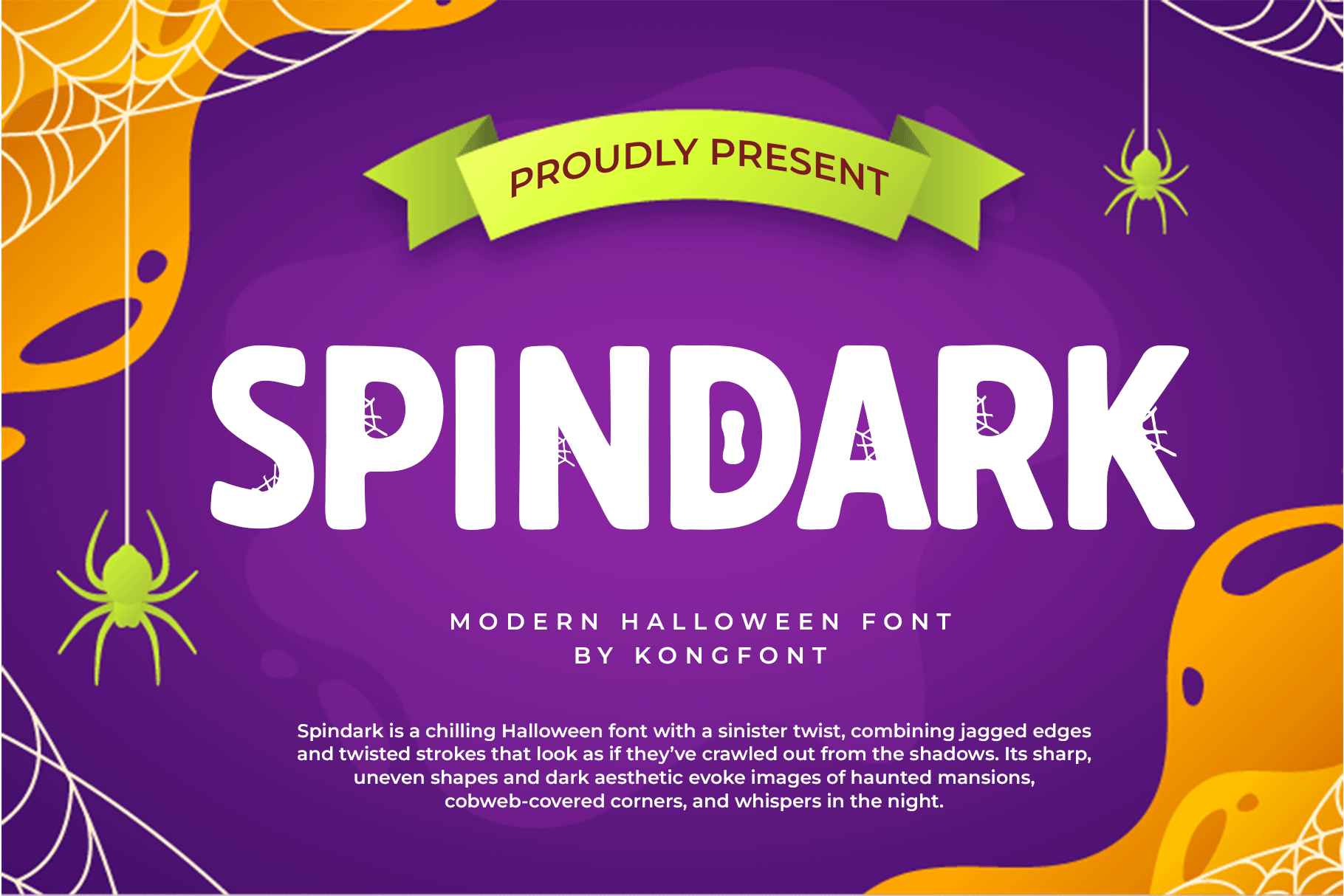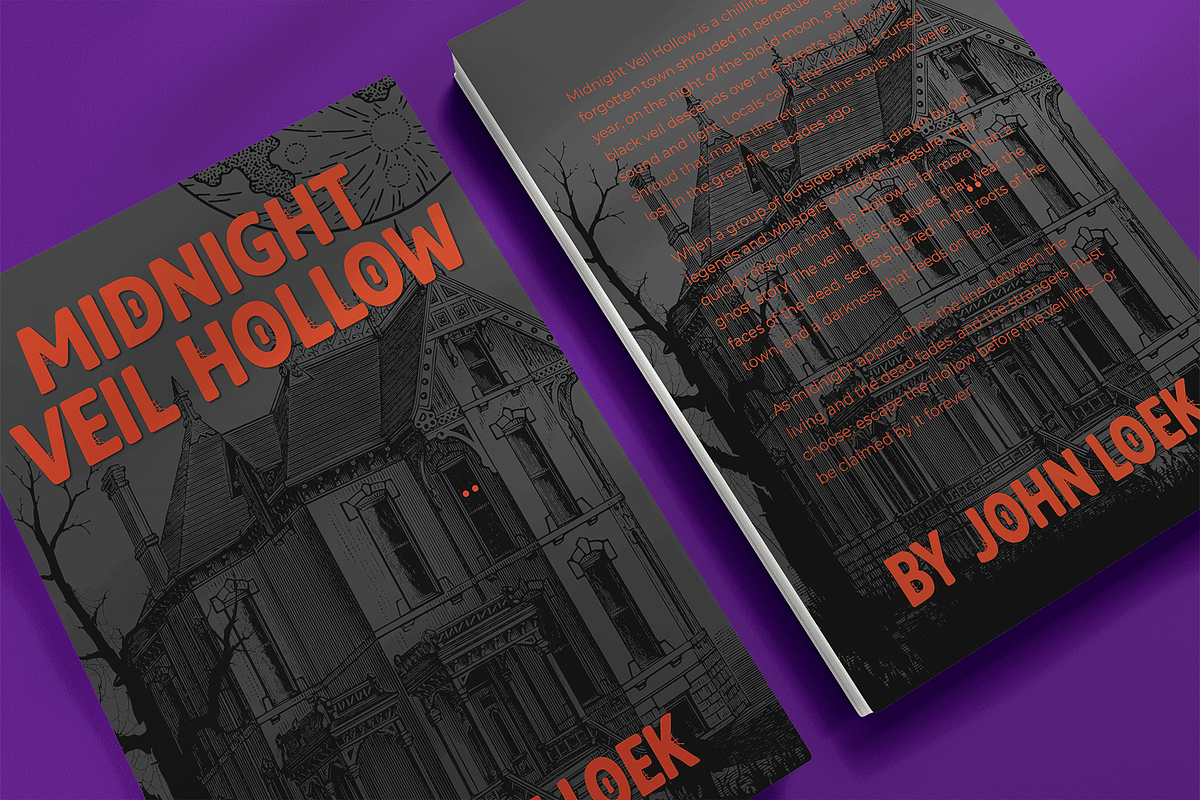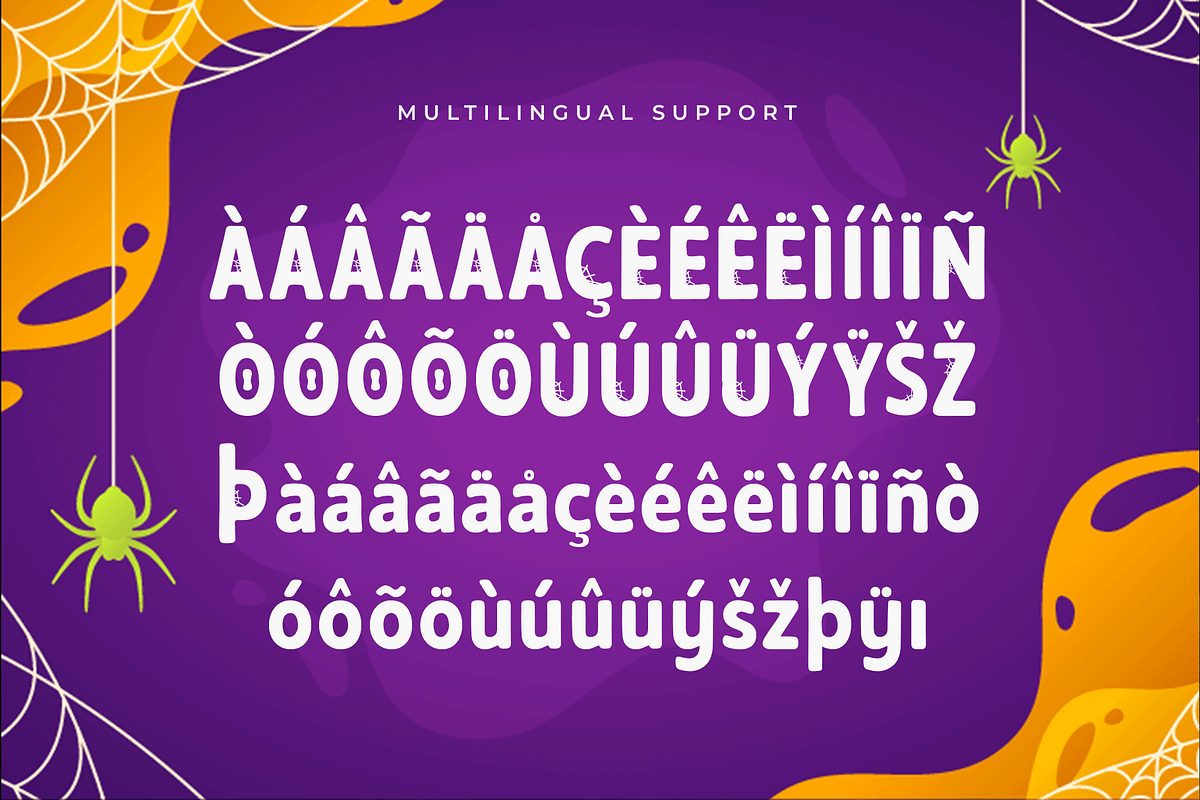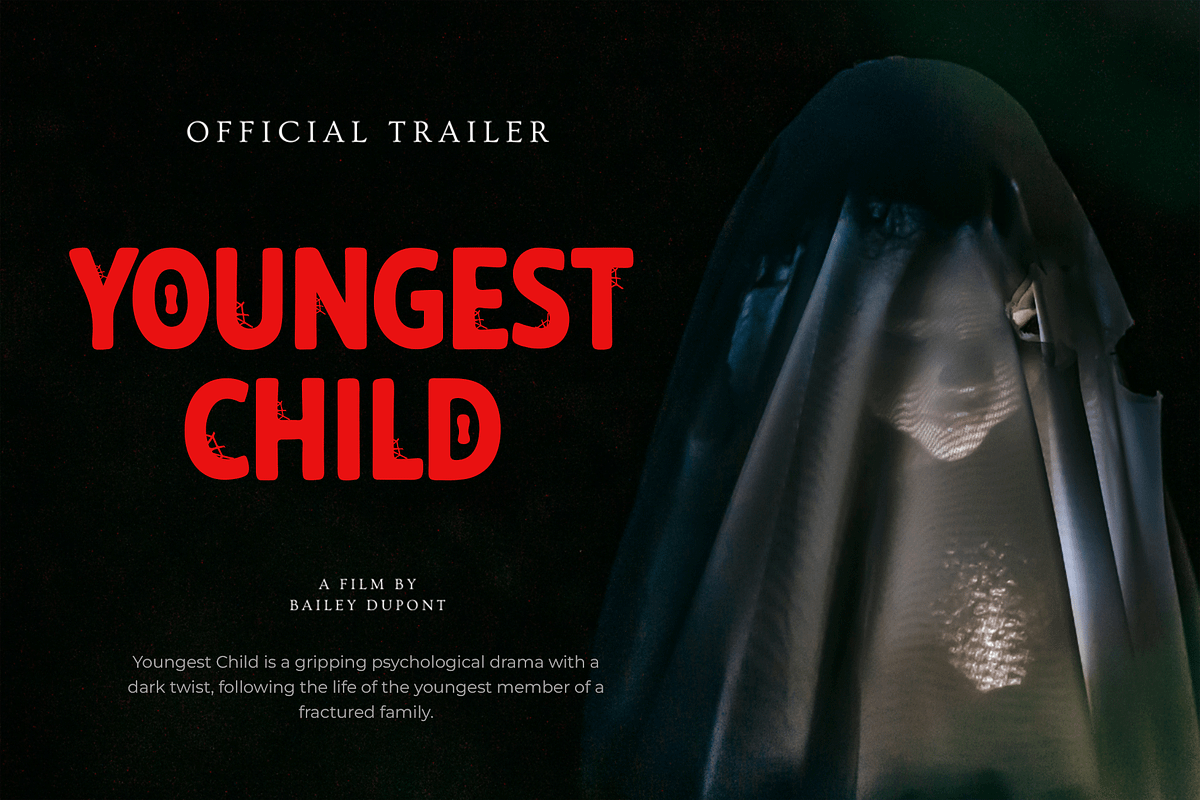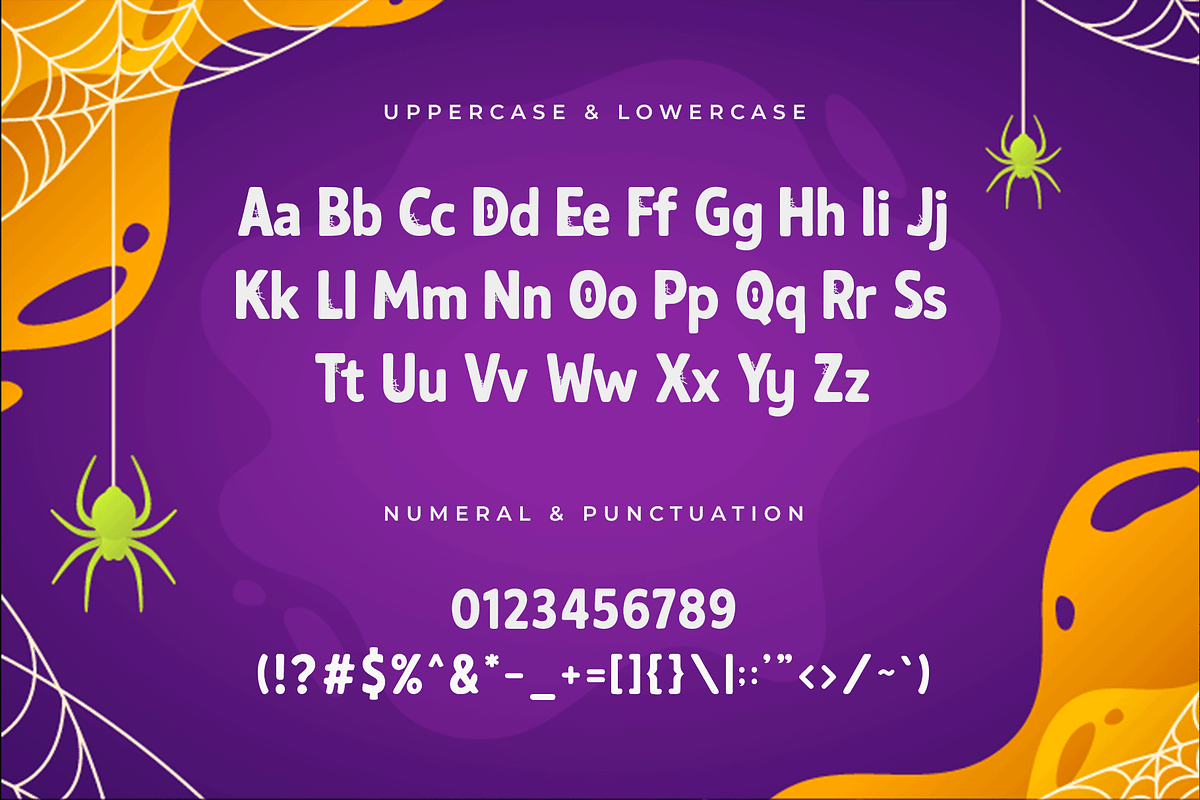
Spindark – Modern Halloween Font
Spindark is a modern Halloween font designed to add a chilling yet stylish touch to your creative projects. With sharp edges, spooky curves, and an eerie vibe, this typeface perfectly captures the spirit of Halloween while maintaining a clean and modern aesthetic.
Perfect for posters, party invitations, logos, packaging, social media graphics, and seasonal branding, Spindark makes your designs stand out with a hauntingly bold personality. Whether you’re creating creepy titles, mysterious branding, or festive Halloween artwork, this font adds just the right amount of dark charm.
The font includes uppercase, lowercase, numbers, punctuation, and multilingual support, making it versatile for a variety of projects.